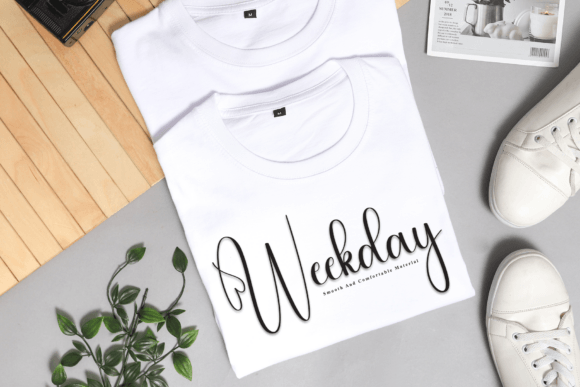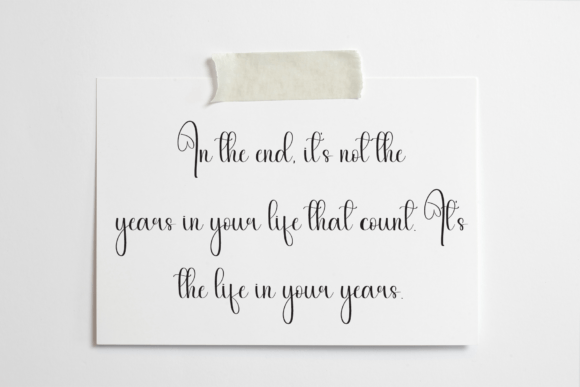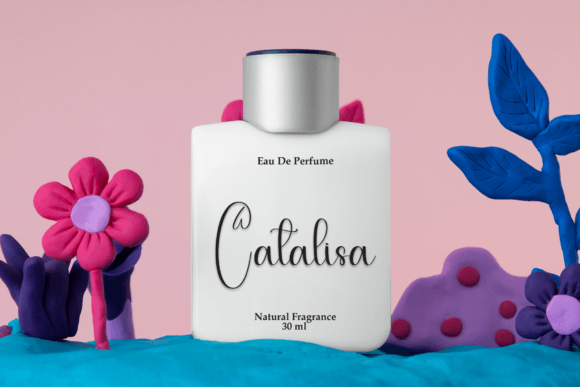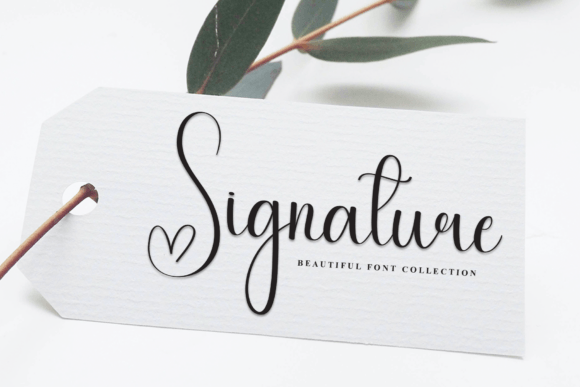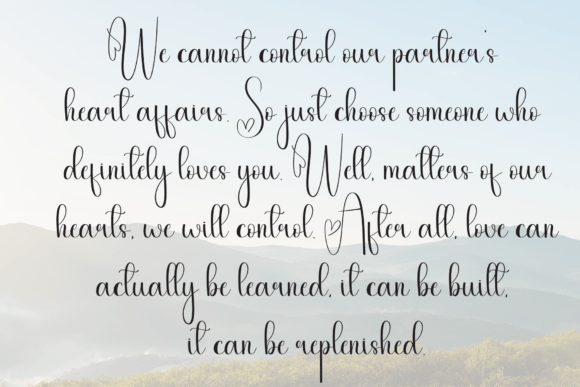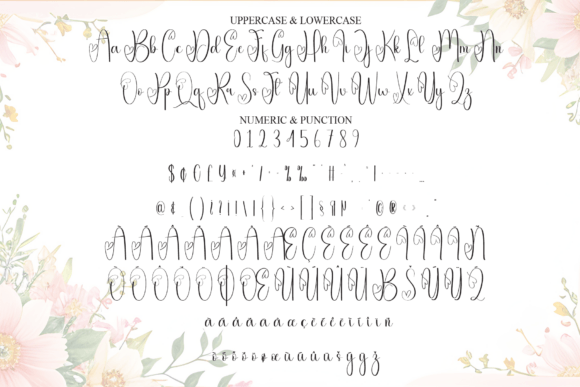
Camila Angela Font: The Sweetest Handwritten Display Font for Your Designs
Are you tired of using the same old fonts for your designs? Do you want to add a touch of sweetness and friendliness to your projects? Look no further than Camila Angela Font, a charming and personable handwritten display font that’s perfect for creating captivating wedding invitations, cards, and more.
What is Camila Angela Font?
Camila Angela Font is a beautiful, handcrafted font that’s designed to bring a sense of fun and playfulness to your designs. With its delicate and cursive lines, this font is perfect for adding a touch of elegance and sophistication to any project. Whether you’re a designer, crafter, or DIY enthusiast, Camila Angela Font is sure to become your new go-to font for all your design needs.
The Perfect Font for Wedding Invitations and Cards
Wedding invitations and cards are a great way to showcase the beauty of Camila Angela Font. This font is perfectly suited for creating romantic and whimsical designs that will make your loved ones feel special. With its sweet and friendly tone, Camila Angela Font is sure to set the mood for a joyous and unforgettable celebration.
Imagine creating beautiful wedding invitations that feature the elegant and cursive lines of Camila Angela Font. You can use it to add a personal touch to your stationery, or to create custom wedding favors that will delight your guests. The possibilities are endless, and with Camila Angela Font, you can create designs that are truly one-of-a-kind.
Why Choose Camila Angela Font?
So, why choose Camila Angela Font over other fonts? Here are just a few reasons why this font stands out from the rest:
- Unique and Handcrafted: Camila Angela Font is a handcrafted font that’s been carefully designed to bring a sense of personality and charm to your designs.
- Sweet and Friendly: This font has a sweet and friendly tone that’s perfect for creating designs that are approachable and inviting.
- Versatile: Camila Angela Font can be used for a wide range of design projects, from wedding invitations and cards to branding and packaging.
- Elegant and Sophisticated: With its delicate and cursive lines, Camila Angela Font adds a touch of elegance and sophistication to any design.
How to Use Camila Angela Font
Using Camila Angela Font is easy! Here are a few tips to get you started:
- Pair it with Other Fonts: Camila Angela Font pairs well with other fonts, so feel free to experiment with different combinations to find the perfect look for your design.
- Use it for Headings and Titles: This font is perfect for headings and titles, so use it to add a touch of personality to your designs.
- Experiment with Colors: Camila Angela Font looks great in a variety of colors, so don’t be afraid to experiment and find the perfect hue for your design.
Whether you’re creating wedding invitations, cards, or other designs, Camila Angela Font is the perfect choice. Its unique and handcrafted design makes it a standout from the rest, and its sweet and friendly tone is sure to bring a smile to your audience’s faces. So go ahead, get creative, and see what amazing designs you can create with Camila Angela Font!